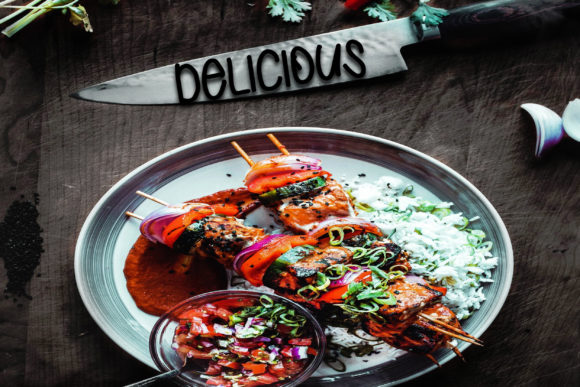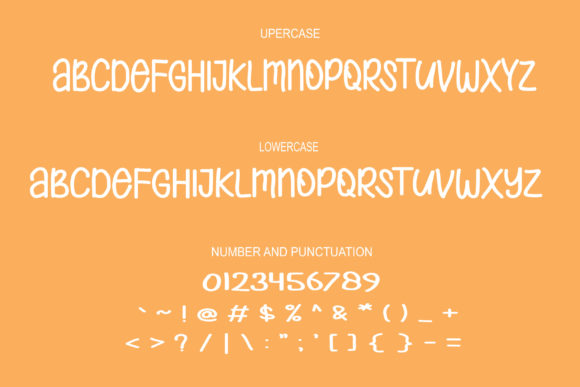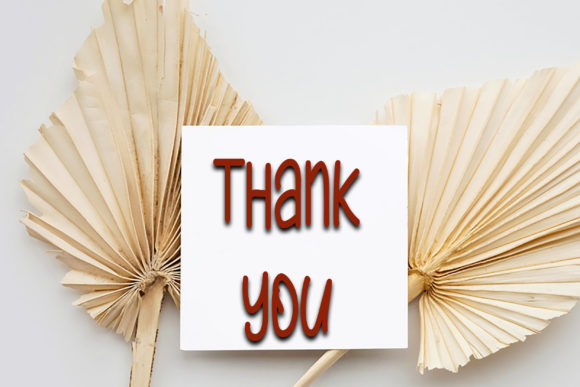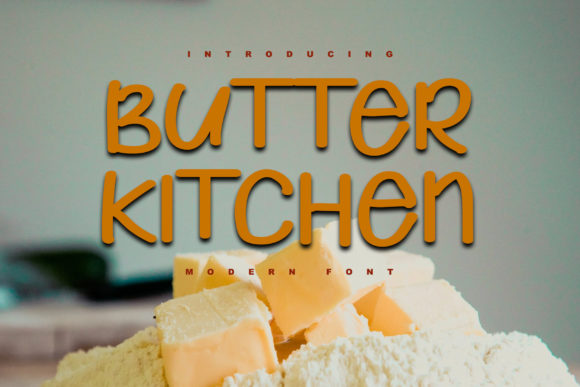
Introducing Butter Kitchen Font: A Simple yet Versatile Display Font
Are you a designer or crafter looking for a font that can elevate your creative projects? Look no further than the Butter Kitchen Font. This simple and adaptable display font is perfect for a wide range of designs, from modern and minimalist to playful and whimsical. In this article, we’ll explore the features and benefits of Butter Kitchen Font, and how it can help you take your designs to the next level.
A Natural and Unique Style
Butter Kitchen Font boasts a natural and unique style that makes it incredibly fitting for a large pool of designs. Its simplicity and adaptability make it an excellent choice for designers and crafters who want to add a personal touch to their projects. Whether you’re creating a logo, branding materials, or social media graphics, Butter Kitchen Font is sure to make a statement.
The beauty of Butter Kitchen Font lies in its versatility. The only limit is your imagination! You can use it to create a wide range of designs, from:
• Modern and minimalist posters and flyers
• Playful and whimsical logos and branding materials
• Elegant and sophisticated social media graphics
• Creative and eye-catching packaging designs
With Butter Kitchen Font, you can experiment with different styles, colors, and textures to create unique and captivating designs that reflect your brand’s personality.
Key Features of Butter Kitchen Font
So, what makes Butter Kitchen Font so special? Here are some of its key features:
• Simple and adaptable design: Easy to read and recognize, making it perfect for a wide range of designs
• Natural and unique style: Adds a personal touch to your designs and sets them apart from the rest
• High-quality and scalable: Ensures crisp and clear rendering, even at large sizes
Why Designers and Crafters Love Butter Kitchen Font
Butter Kitchen Font has quickly become a favorite among designers and crafters, and for good reason. Here are some reasons why:
• Time-saving: With Butter Kitchen Font, you can create stunning designs in no time, thanks to its simplicity and adaptability